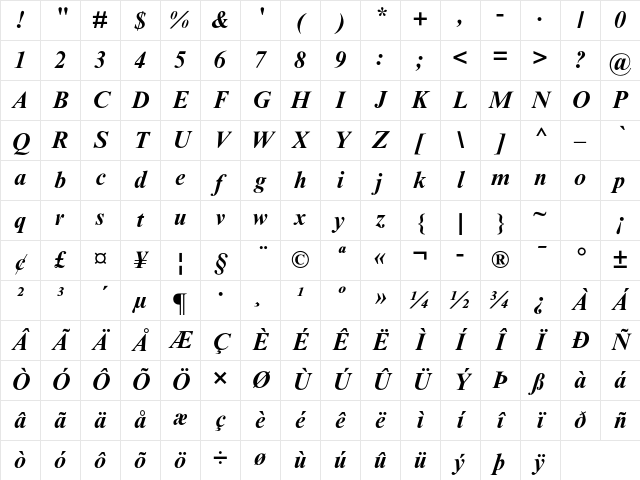
Times New Roman MT Std Bold Italic
Designer: Starling Burgess, Victor Lardent, Stanley Morison
Design Context for Times New Roman MT Std
Times New Roman MT Std is a composed and adaptable typeface that performs quietly and consistently across a wide range of design contexts. The slanted form adds forward momentum and visual energy. Its bold stroke weight gives it real presence on the page.